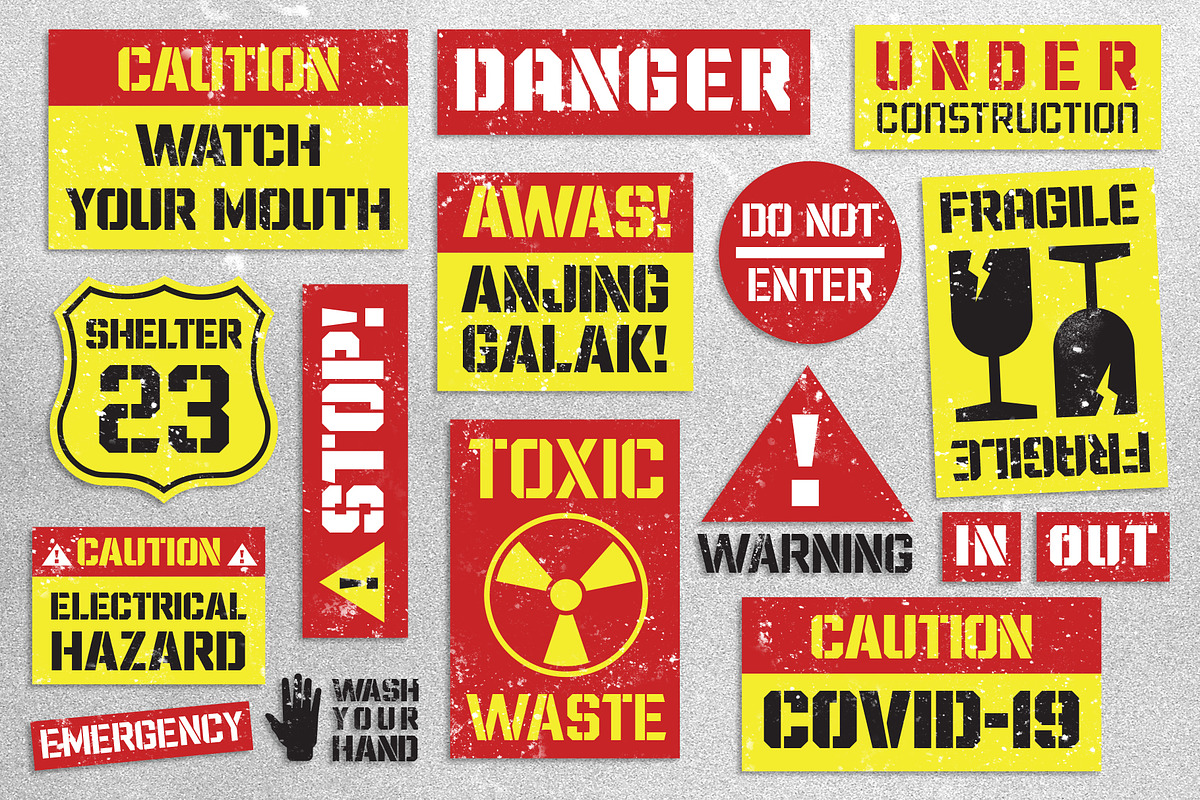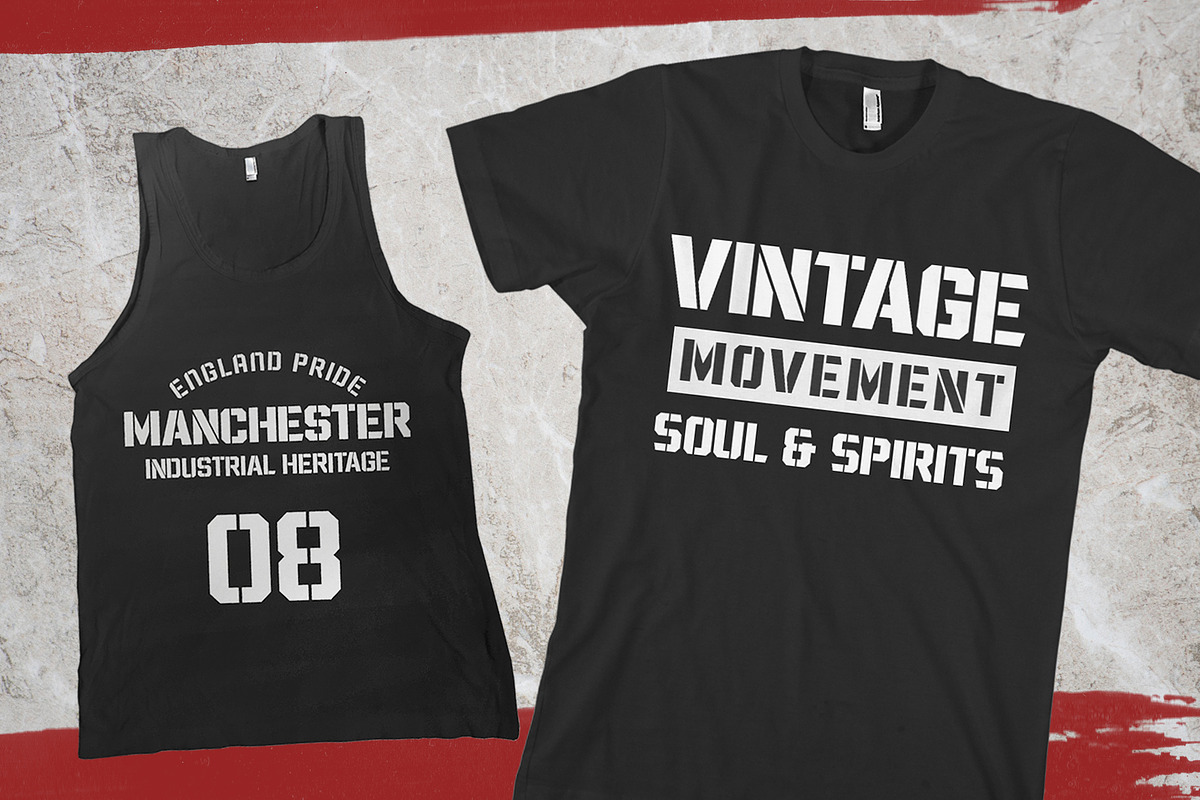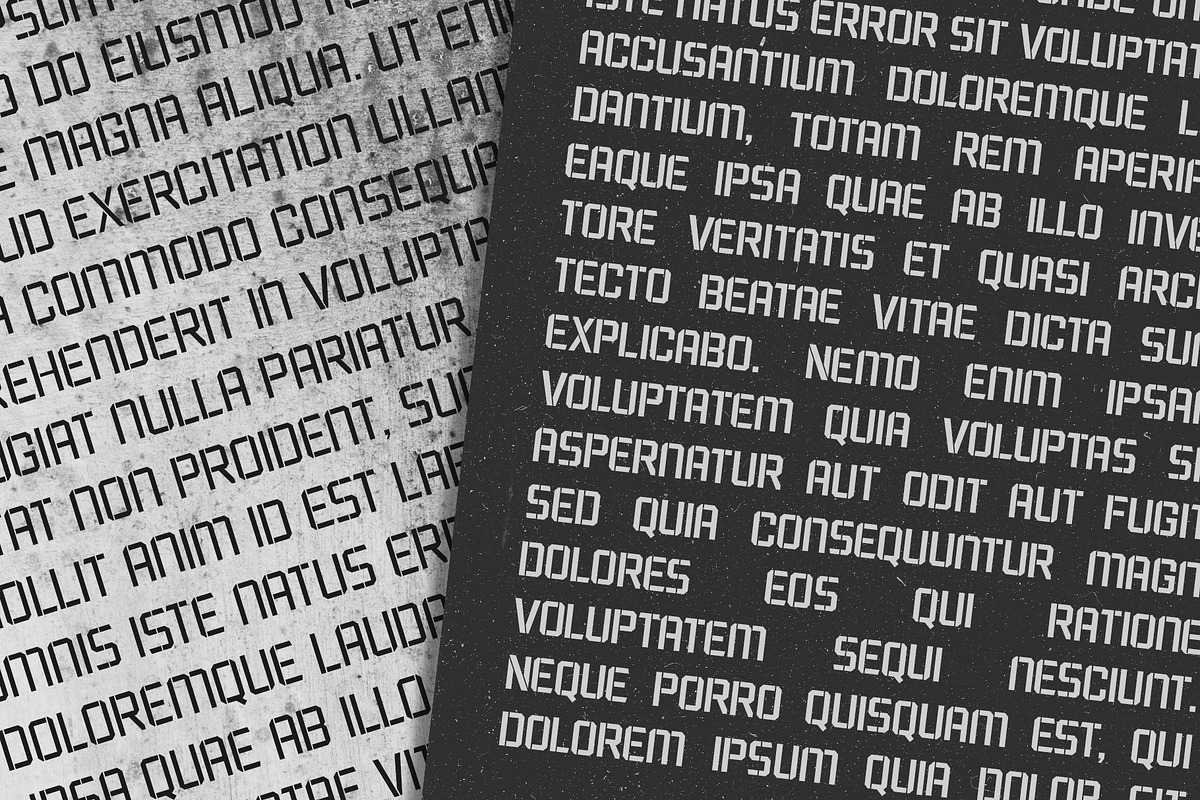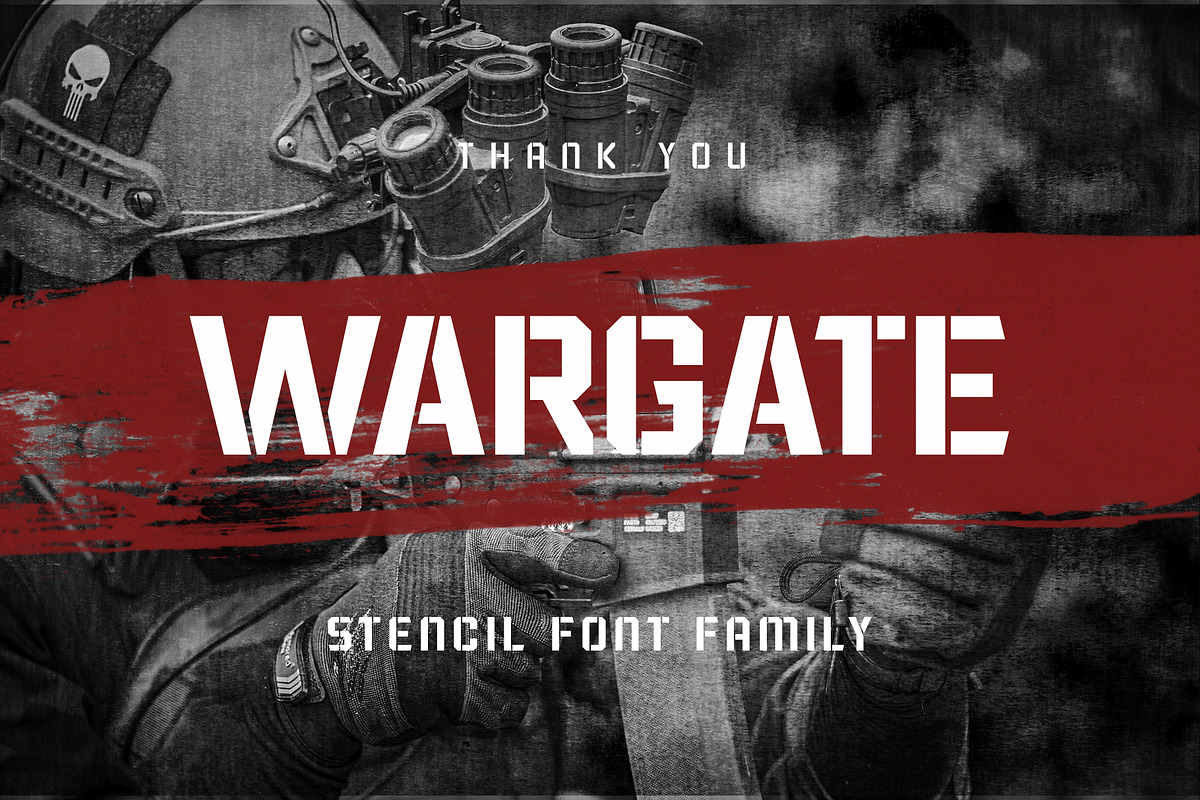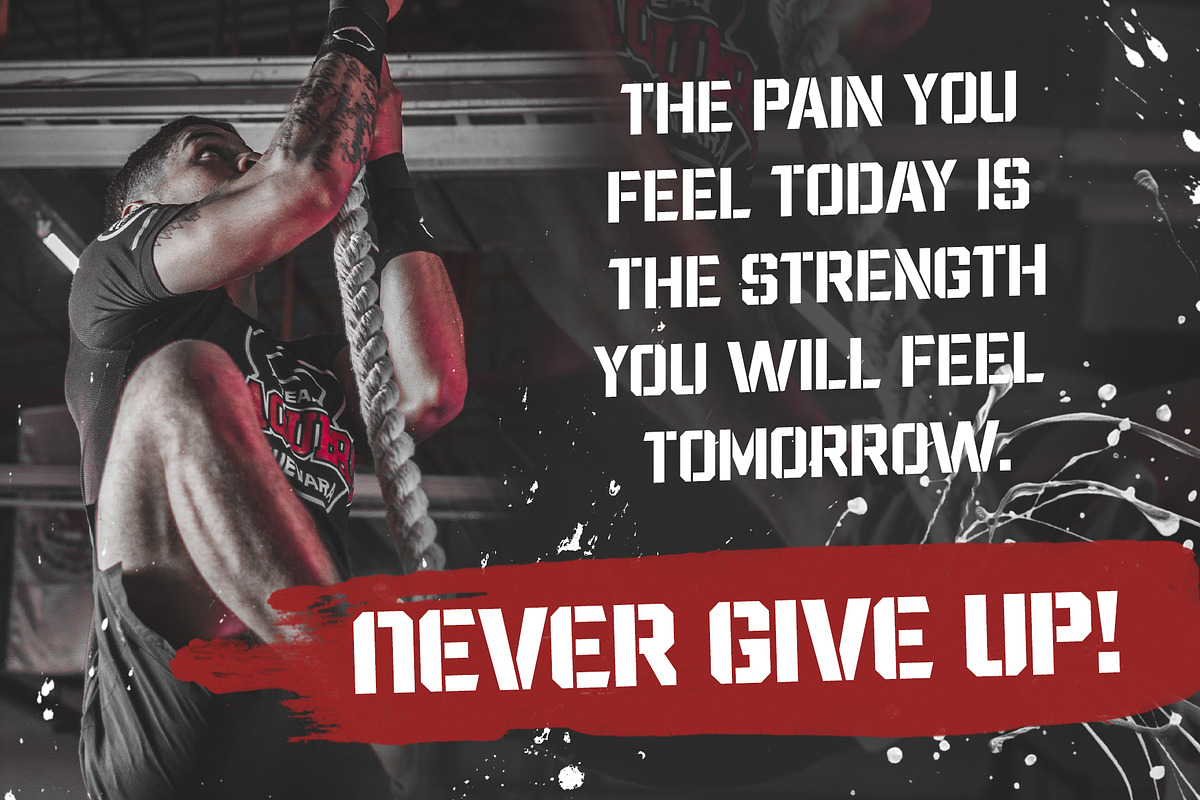
Wargate - Stencil Family
Wargate is a solid stencil style inspired by military design and urban graffiti. Comes with 5 weight that perfect for display and short body text. Designed with strong shapes and adjusted the letterforms a bit tightly that gives incredibly versatile looks.
Wargate can be used for posters, logo, label, caution designs, t-shirts, packaging, stationery designs, pendants, and more! This font is all-caps font that flexible for any design themes like military, sports, activism, youth spirits, attractive, vintage etc. Multilingual supports, up to 28 languages.